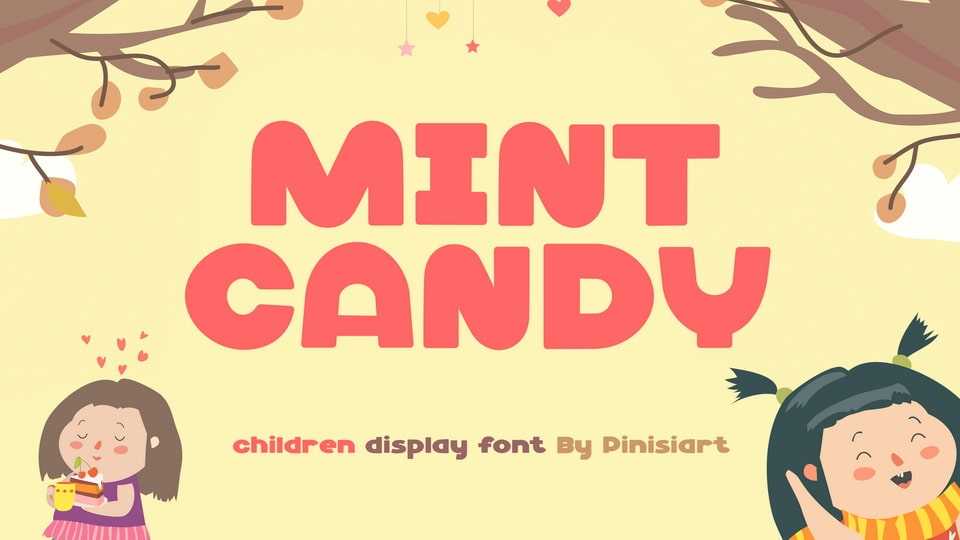
Download Mint Candy font, a kids display typeface. Suit perfectly for children’s books, online games, stationery, school supplies, poster, movie title, Youtube covers, Youtube thumbnails, social media page covers, and so on